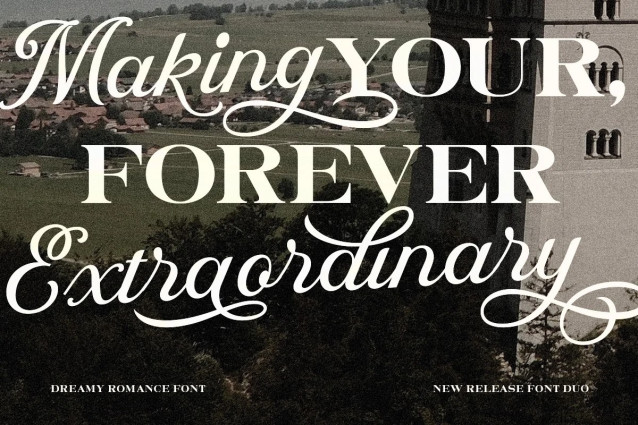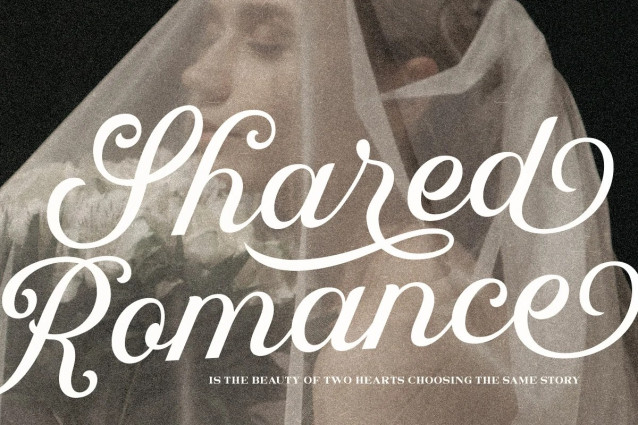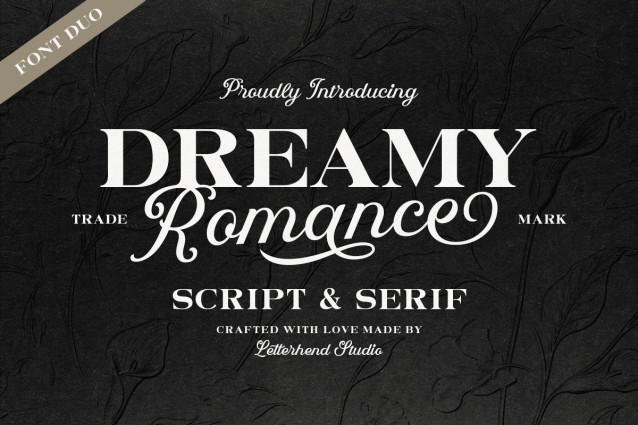
Dreamy Romance is a graceful font duo that brings together sweeping calligraphic script and a bold, sophisticated serif, creating a beautifully balanced contrast between romance and refined editorial style. The script flows with expressive curves, elegant swashes, and a